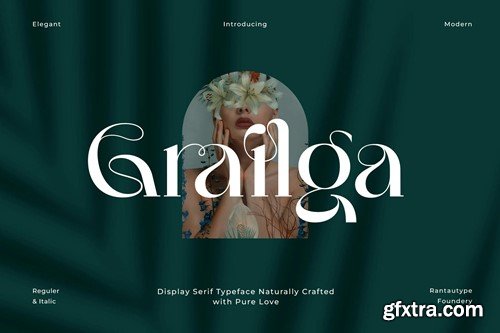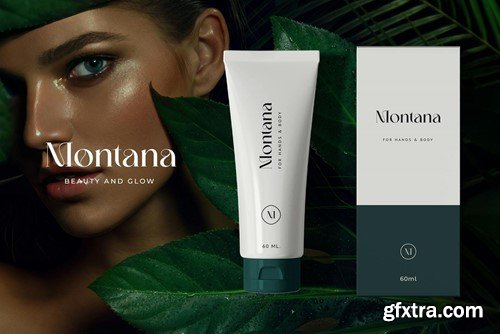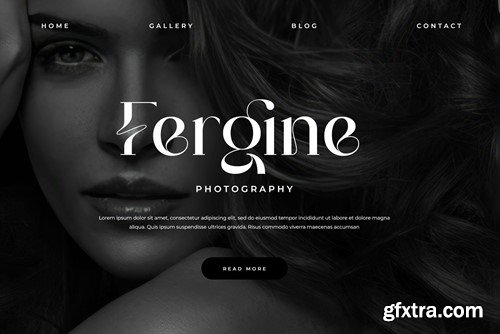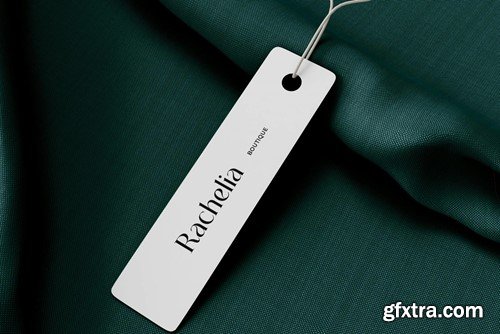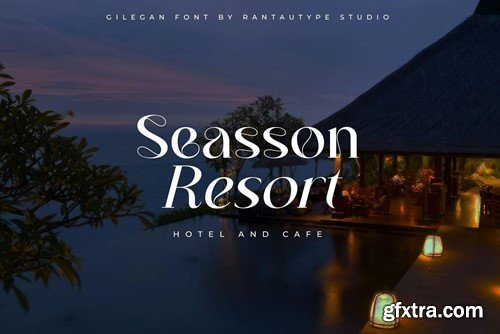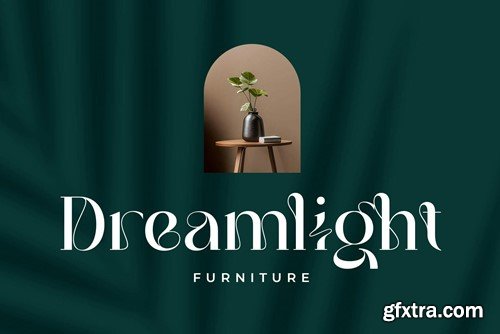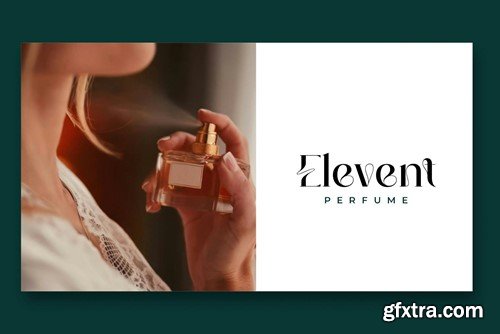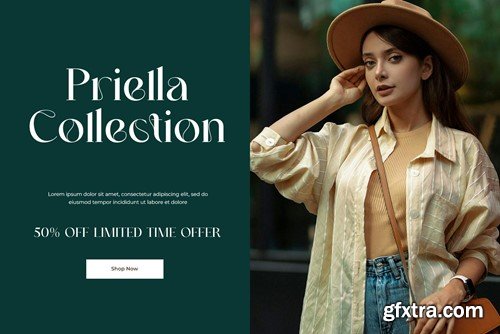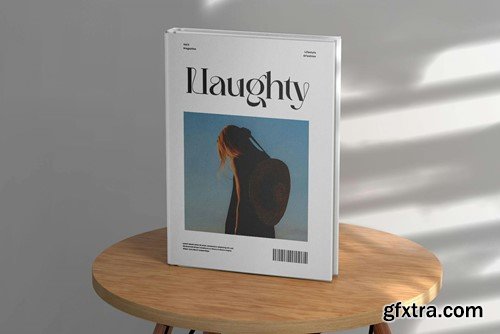
Grailga is modern serif typeface with elegant flow curve. Naturally and elegant is two word that are suitable for this typeface. We love how each character flow to connect with other shape very beautiful and unique with its versatility and contemporary appeal. Grailga is a perfectly choice for any creative endeavor, chic, lifestyle design such as logos, advertisements, watermark on photography, stationery, branding project, display and magazine, invitation, corporate brand, product design, label, business project and many other project with elegant touch. What you have: Fonts include Multilingual Character for: Afrikaans, Albanian, Asu, Basque, Bemba, Bena, Breton, Chiga, Cornish, Dutch, English, Estonian, Filipino, Finnish, Friulian, Galician, Gusii, Indonesian, Irish, Italian, Kabuverdianu, Kalenjin, Kinyarwanda, Luo, Luxembourgish, Luyia, Machame, North, Oromo, Portuguese, Quechua, Romansh, Rombo, Rundi, Rwa, Samburu, Sango, Sangu, Scottish, Gaelic, Sena, Shambala, Shona, Soga, Somali, Spanish, Swahili, Swedish, Swiss, German. Thank you for your purchase! Hope you enjoy with our font!